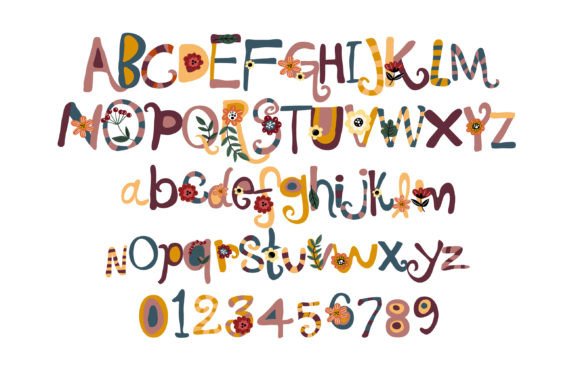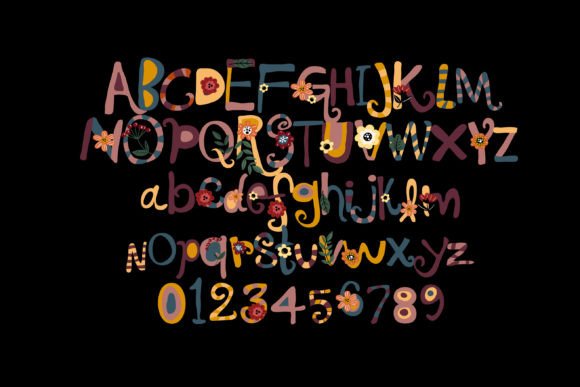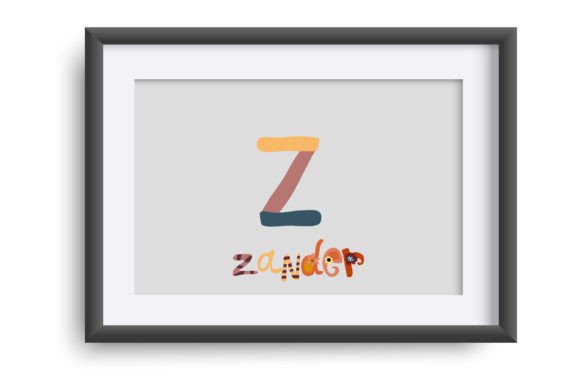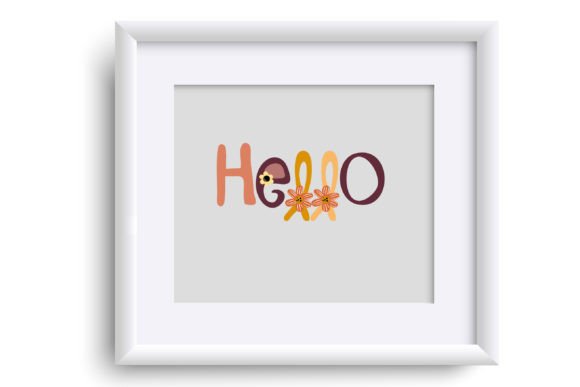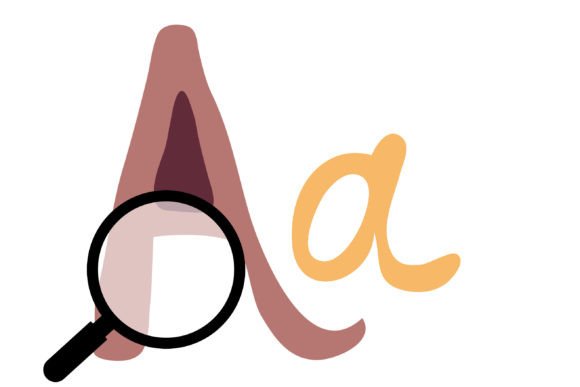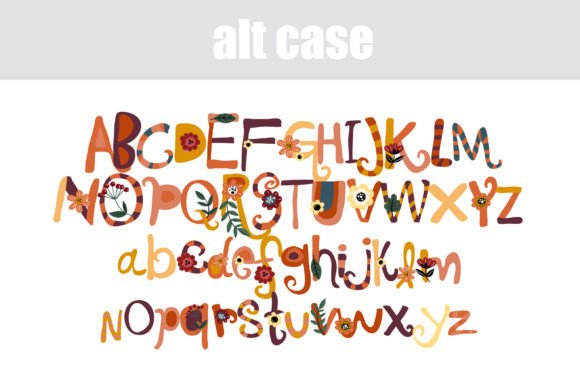
Introducing Autumn Shine Font: Add a Touch of Whimsy to Your Designs
Are you looking for a font that can add a pop of color and personality to your designs? Look no further than the Autumn Shine Font! This full-color font features playful lettering with flowers, sunshine, and more in a beautiful autumn color palette. In this article, we’ll take a closer look at the features of Autumn Shine Font and how you can use it to elevate your designs.
What is Autumn Shine Font?
Autumn Shine Font is a unique and eye-catching font that combines playful lettering with colorful graphics. Each letter of the alphabet features intricate designs with flowers, sunshine, and other autumn-themed elements. The font is available in an alt version, which offers a different color scheme for each letter, allowing you to mix and match to create a truly unique look.
Key Features of Autumn Shine Font
- Full-color font: Unlike traditional fonts, Autumn Shine Font features a full range of colors that can add depth and interest to your designs.
- Playful lettering: The font features playful lettering with flowers, sunshine, and other autumn-themed elements.
- Alt version: Each letter has an alternate version in a different color, allowing you to create a unique look.
Tips for Using Autumn Shine Font
Here are a few tips for using Autumn Shine Font in your designs:
- Experiment with different colors: Try out different color combinations to find the one that works best for your design.
- Mix and match letters: Use the alt version of each letter to create a unique and playful look.
- Use it for seasonal designs: Autumn Shine Font is perfect for fall-themed designs, but it can also be used for other seasonal designs.
- Add it to your branding: Use Autumn Shine Font to add a touch of personality to your branding materials.
Autumn Shine Font is a unique and eye-catching font that can add a touch of whimsy to your designs. With its full-color features, playful lettering, and alternate color versions, it’s perfect for designers and crafters looking to create something special. Whether you’re designing for fall or just want to add some personality to your designs, Autumn Shine Font is a great choice.